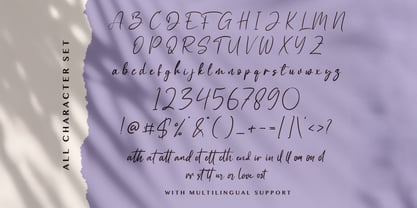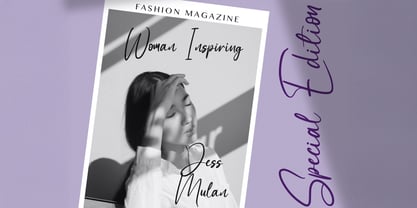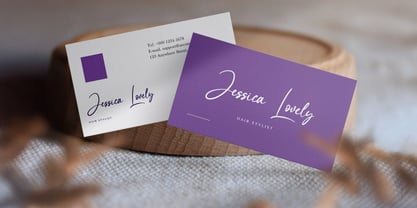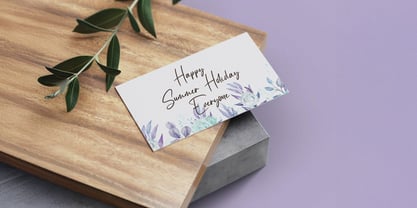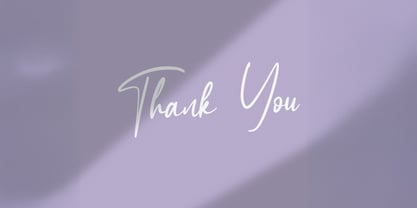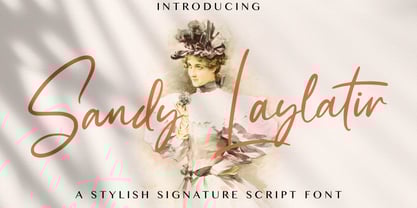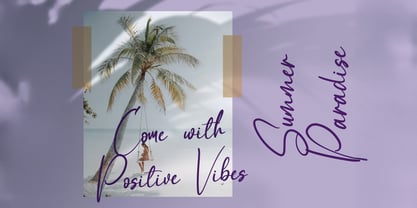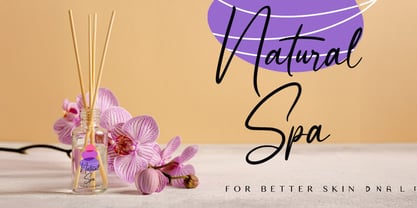
Sandy Lailyatir
Die Schriftfamilie Sandy Lailyatir wurde von Virgiawan Listanto entworfen und von Stringlabs Creative Studio veröffentlicht. Sandy Lailyatir enthält 1 Stile.
Sandy Lailyatir is a smooth handwritten font that combines elegance with a relaxed, modern vibe. Its gentle strokes and flowing style bring a personal, heartfelt touch to any project making it perfect for creatives who want their designs to feel authentic and inviting. From branding to social media, Sandy Lailyatir delivers charm and sophistication in every letter.